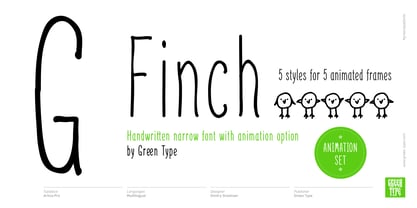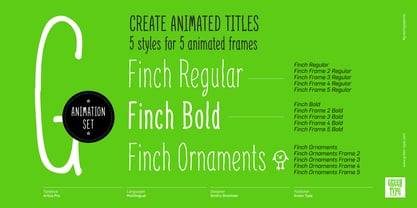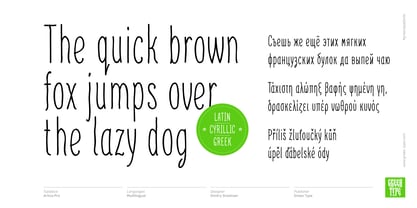
Finch
by Green Type
Finch is a narrow handwritten multilingual font. Supports Latin, Cyrillic, Greek, Eastern European, Baltic and Turkish scripts.
Finch has swash initial and final forms, as well as standard ligatures of opentype features. A special option is the ability to create animated titles using one of five styles for each next frame, which differ slightly from each other, resulting in a live cartoon title.